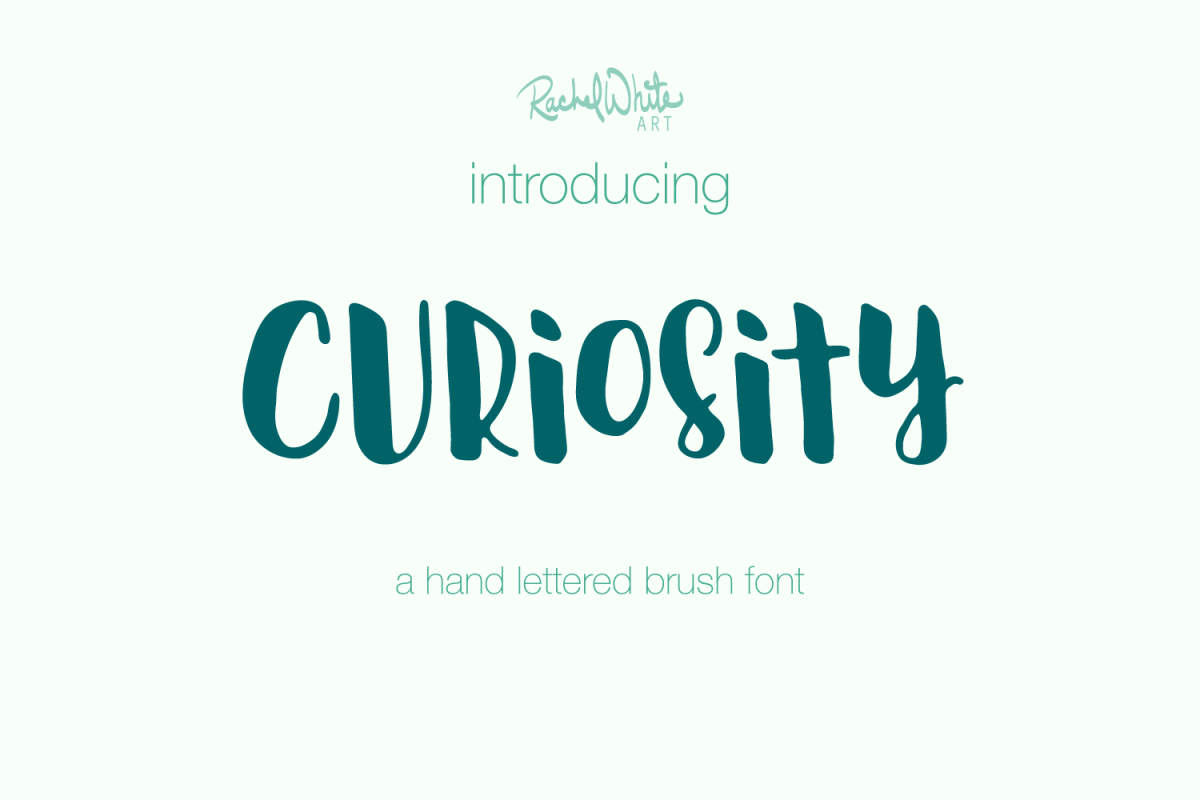
Introducing Curiosity - a hand lettered brush font. Created entirely with a Tombow Calligraphy Pen.
Mix and match upper and lower case letters to get a perfectly hand lettered look on your design projects. Includes ligatures, numerals, and a host of symbols.
Includes a set of hand drawn doodles. Click on the pic and scroll down to see them all. A ton of swirls, flourishes, textures, and shapes to add to your typography creations! In AI and EPS.